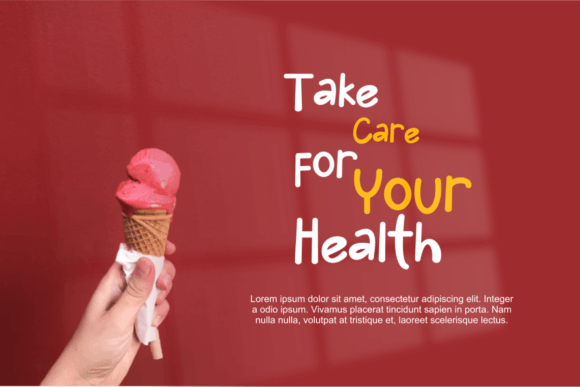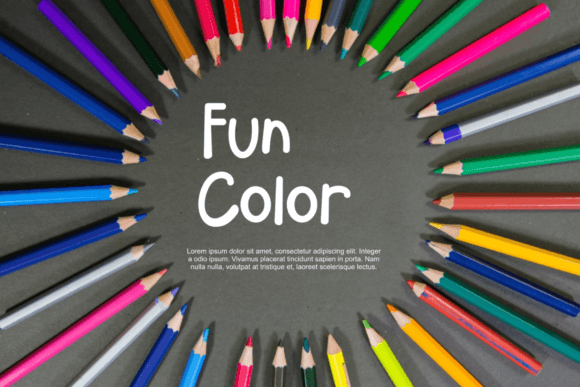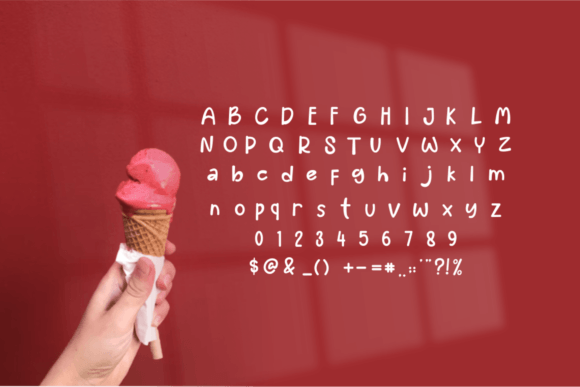
Introduction to Retigra Font
Have you ever been working on a creative project and suddenly, a spark of inspiration hits you? The words flow effortlessly, and your design starts to take shape. But, what if you’re struggling to find the perfect font to bring your idea to life? That’s where the Retigra Font comes in – a bold and authentic handwritten font that’s sure to elevate your design to the next level.
With its high-quality design, the Retigra Font is perfect for any branding project, from logo designs to t-shirt printing and export. Its versatility and unique style make it an excellent addition to your design resource library. Plus, it’s available for free download, making it an accessible and valuable tool for designers of all levels.
Whether you’re working on a personal or professional project, the Retigra Font is sure to provide a transparent background for your creative vision to shine through. Its authenticity and boldness make it a standout choice in a wide range of contexts, ensuring that your design stands out from the crowd.
Key Features of Retigra Font
- High-quality design resource ideal for creative projects, offering a unique and stylish aesthetic.
- Features a transparent background, making it easy to use in any design scenario.
- Includes a wide range of characters, including uppercase and lowercase letters, numbers, and punctuation marks.
- Designed with a bold and modern style, perfect for adding a touch of sophistication to any design project.
Honest Review: Retigra Font
I recently stumbled upon the Retigra Font, and I must say, it’s been a game-changer for my creative projects. The Retigra Font is a high-quality, versatile font that’s perfect for any design resource.
- ✨ High-quality design: The Retigra Font is incredibly detailed and well-crafted, making it perfect for high-end designs.
- ✨ Transparent background: The font’s transparent background makes it easy to use in various design contexts, from logos to graphics.
- ⚠️ Limited character set: The Retigra Font only includes a basic set of characters, which might not be ideal for complex designs.
- ⚠️ Limited font sizes: The font may not be optimized for large font sizes, which can lead to some readability issues.
Overall, I’m really impressed with the Retigra Font. It’s a great addition to any designer’s toolkit, and its free download makes it an even more attractive option. With a few tweaks to address the limitations, this font could be a true design powerhouse.
Tips for Getting the Most Out of the Retigra Font
Use the Retigra Font in conjunction with a high-quality image or design element to create a visually appealing design. Experiment with different font sizes and styles to add depth and interest to your design. The Retigra Font is a versatile design resource that can be used in a variety of creative projects.
The Retigra Font is commonly used in graphic design, logo creation, and branding projects. Its high-quality design and transparent background make it a great resource for designers who want to create visually appealing and professional designs.